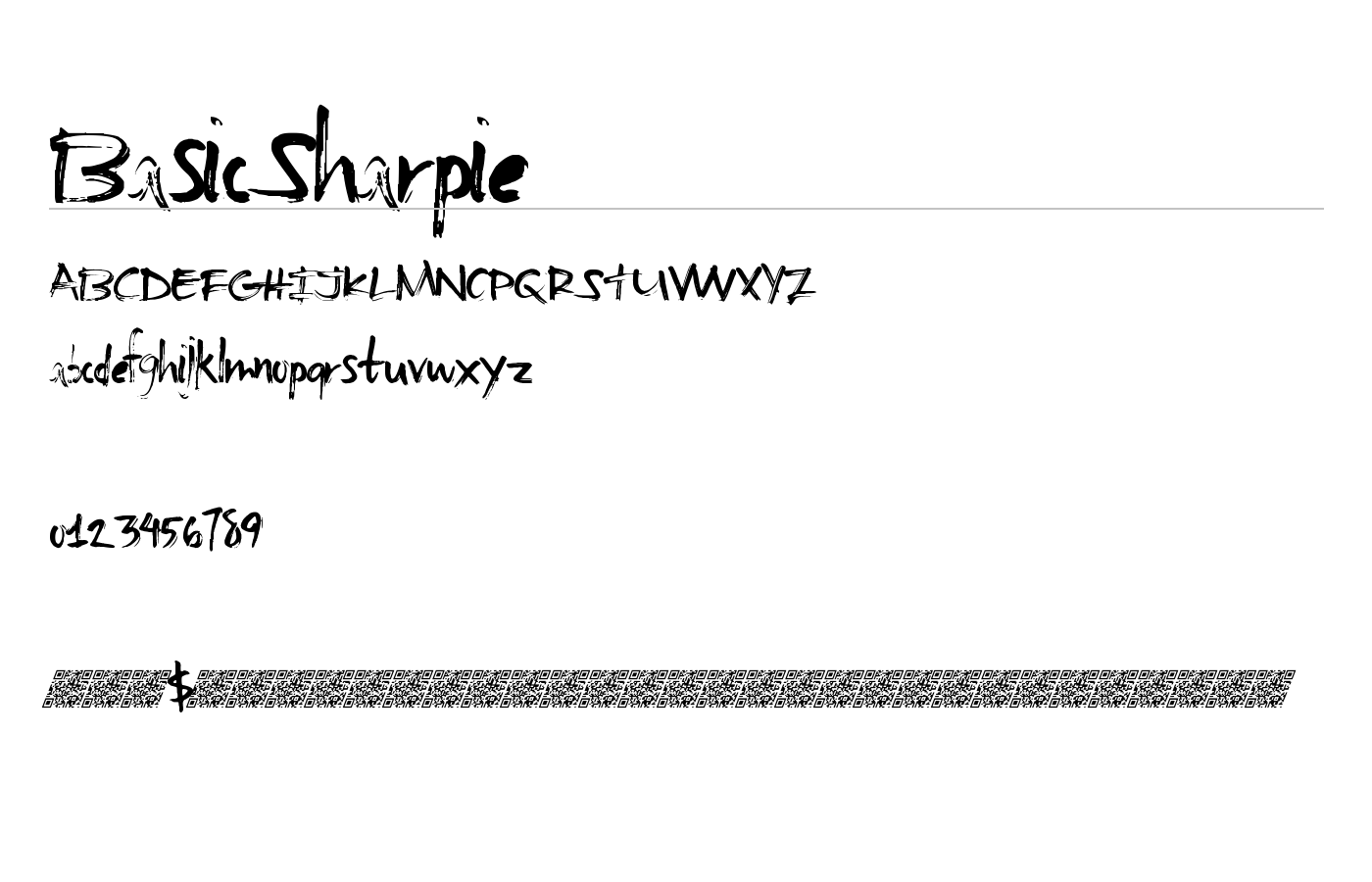
BasicSharpie is a casual, handwritten-style font with a rough, brush-like texture that mimics the look of a marker pen. It features irregular strokes and a playful, informal character, making it ideal for creative projects, posters, or branding that seek an edgy, artistic vibe. This font adds personality and a handcrafted feel, best suited for headlines or expressive display use rather than body text.
BasicSharpie Font
About BasicSharpie Font